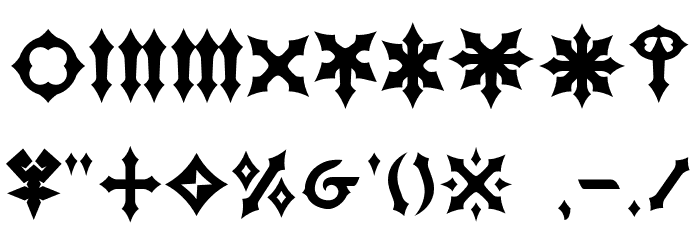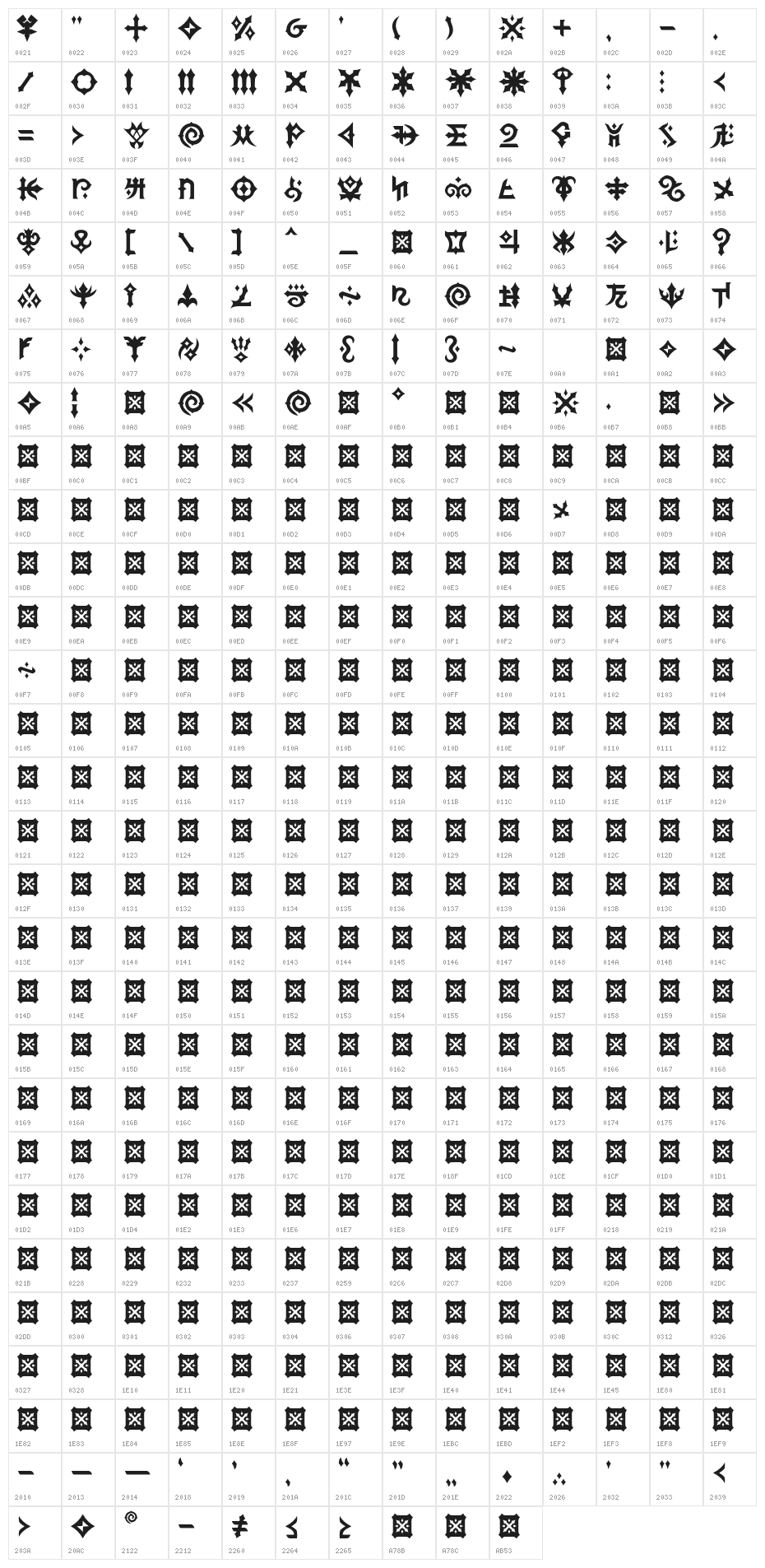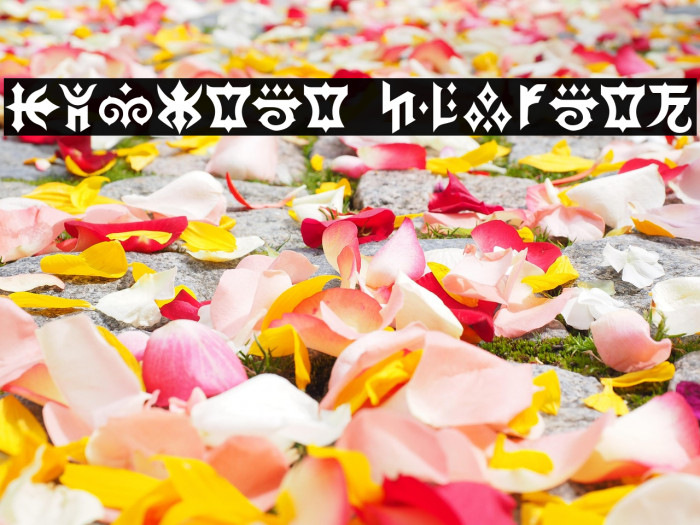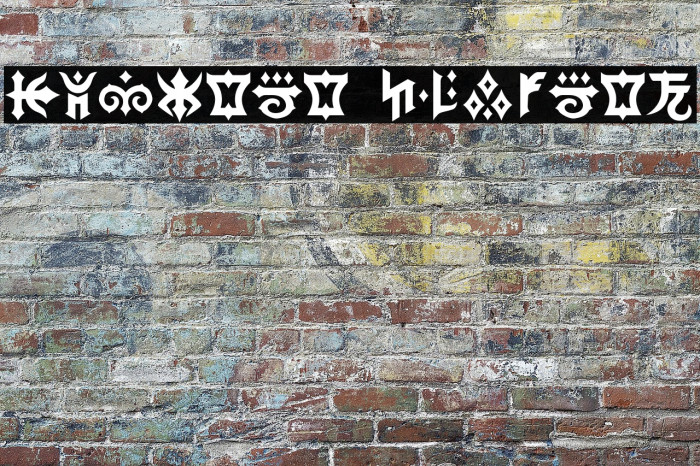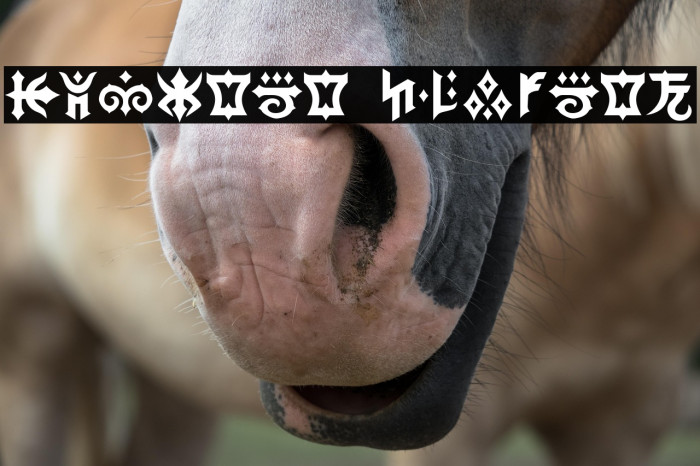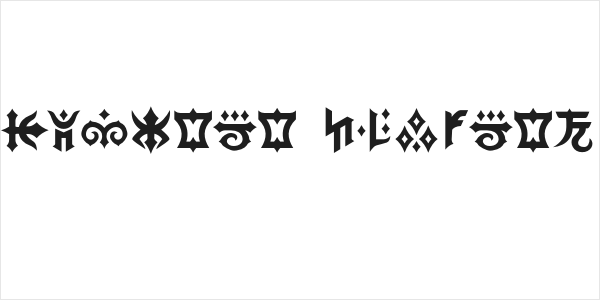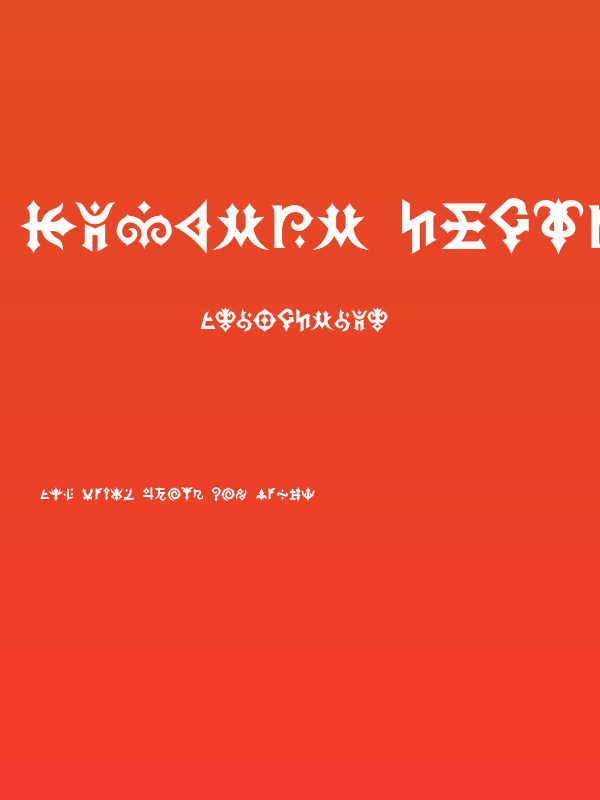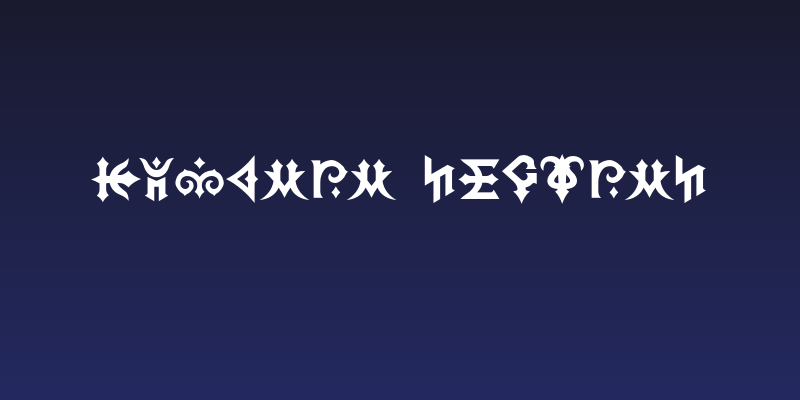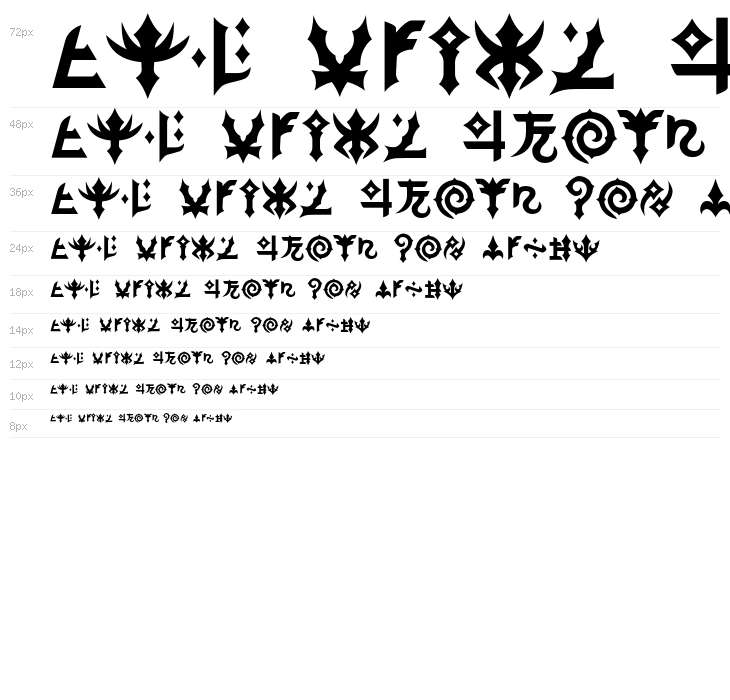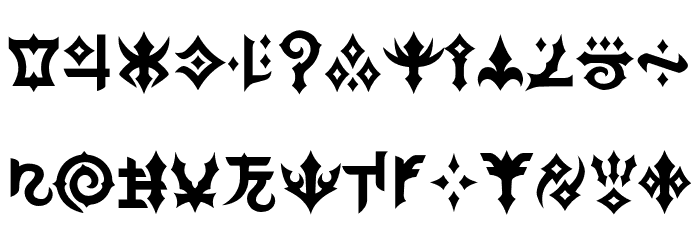
KHScala Regular Font
KHScala Regular Description
This font features a highly decorative and intricate design, characterized by sharp, angular shapes and bold strokes. Each character is uniquely crafted with a gothic and tribal influence, making it visually striking and complex. The font's style is reminiscent of ancient symbols or runes, with a modern twist that adds a sense of mystery and depth. The boldness of the characters ensures high visibility, while the intricate details invite closer inspection. This font is not suited for body text due to its complexity but excels in creating impactful visual statements.